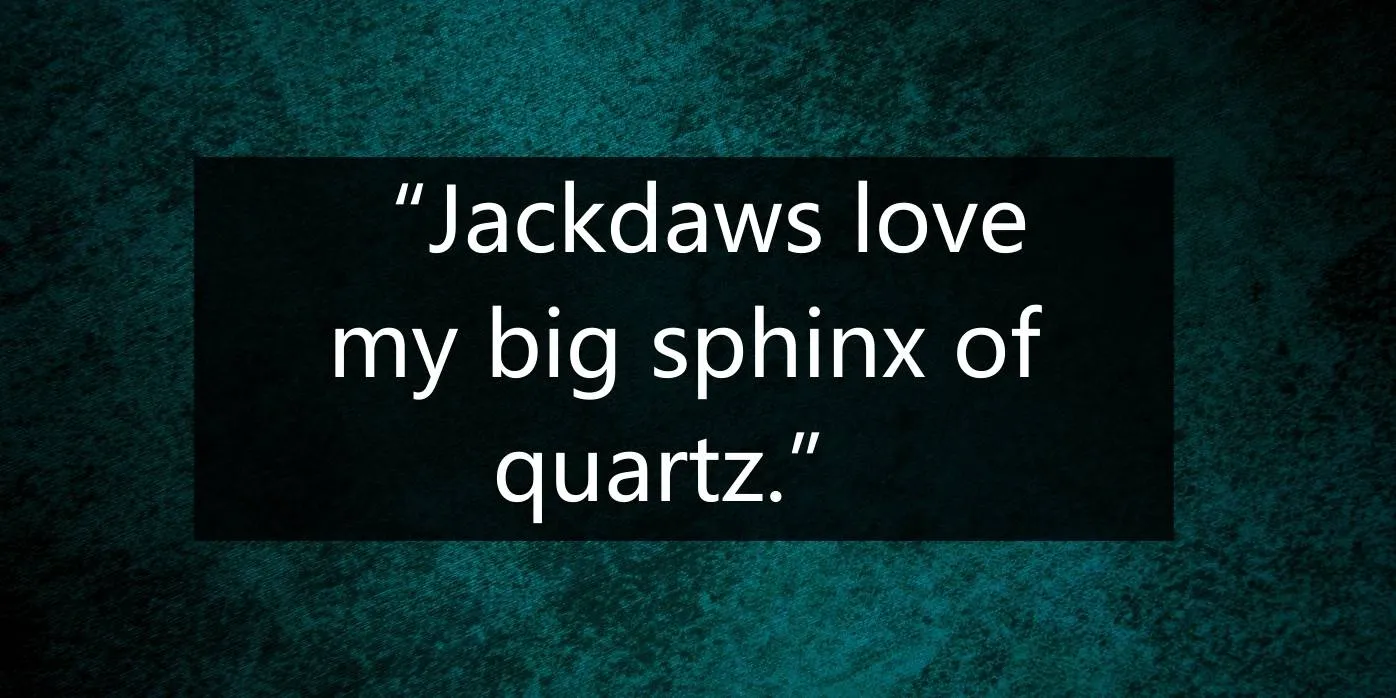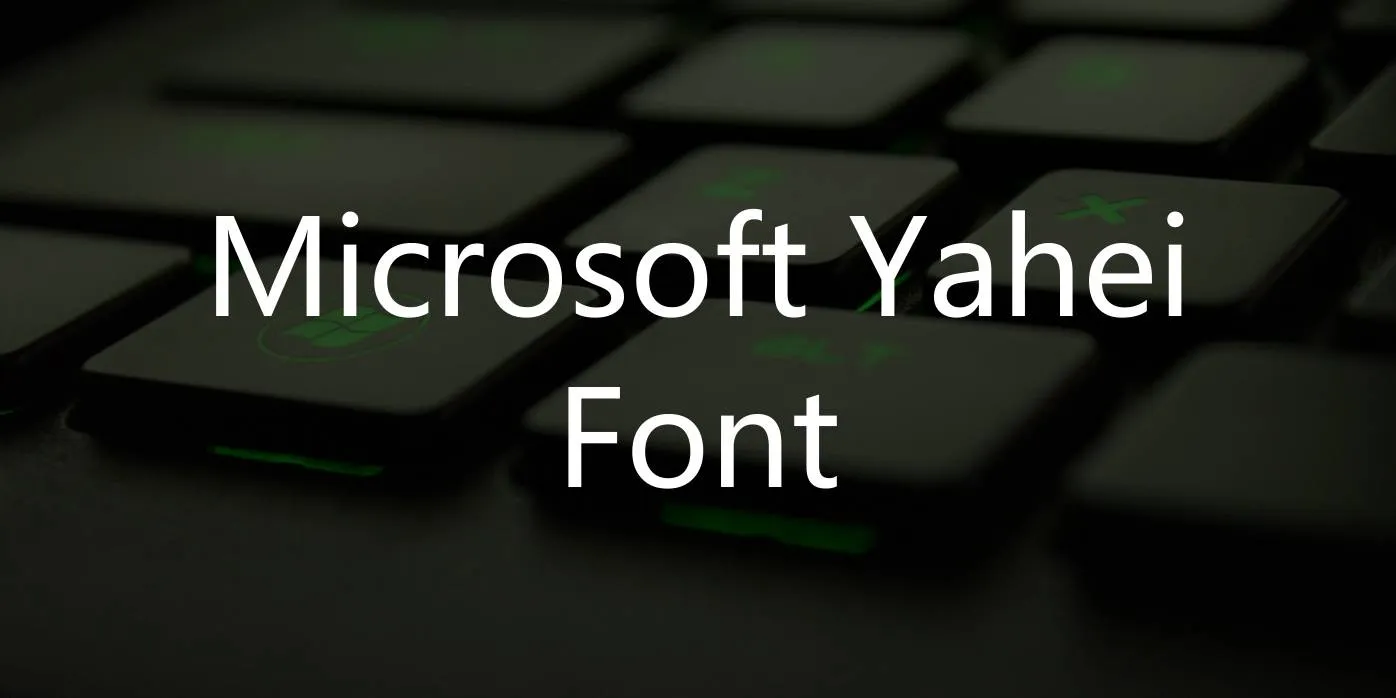
Microsoft Yahei Font
Here, we are going to discuss a tremendous typeface that has massive fame in the designing industry named Microsoft Yahei Font. Microsoft is the developer of this typeface. It was first introduced by Microsoft in 1995. This cozy font family belongs to the Sans Serif typeface.
It has a sleek and elegant look that makes it perfect for any type of content, especially for headings. Microsoft Yahei Font is great for both print and digital designs due to its versatility and clarity. Its copy and paste function is best for many classic designs. It is best for CSS and SVG.
You can also use its similar corbel font. This amazing typeface quickly gained popularity among designers. This awesome font family features a large range of different weights, from thin to bold, making it suitable for use in all kinds of content ranging from web banners to eBooks and business reports. Additionally, this typeface supports multiple languages with different scripts.